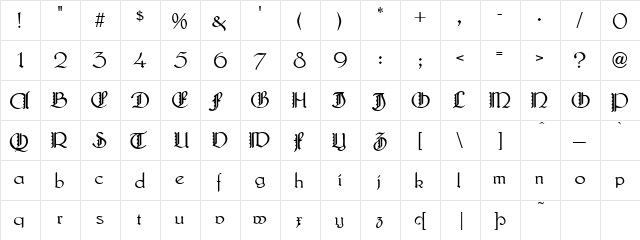
Lautenbach Fancy Caps Normal
Design Context for Lautenbach Fancy Caps Typeface
Lautenbach Fancy Caps is a composed and adaptable typeface that performs quietly and consistently across a wide range of design contexts.